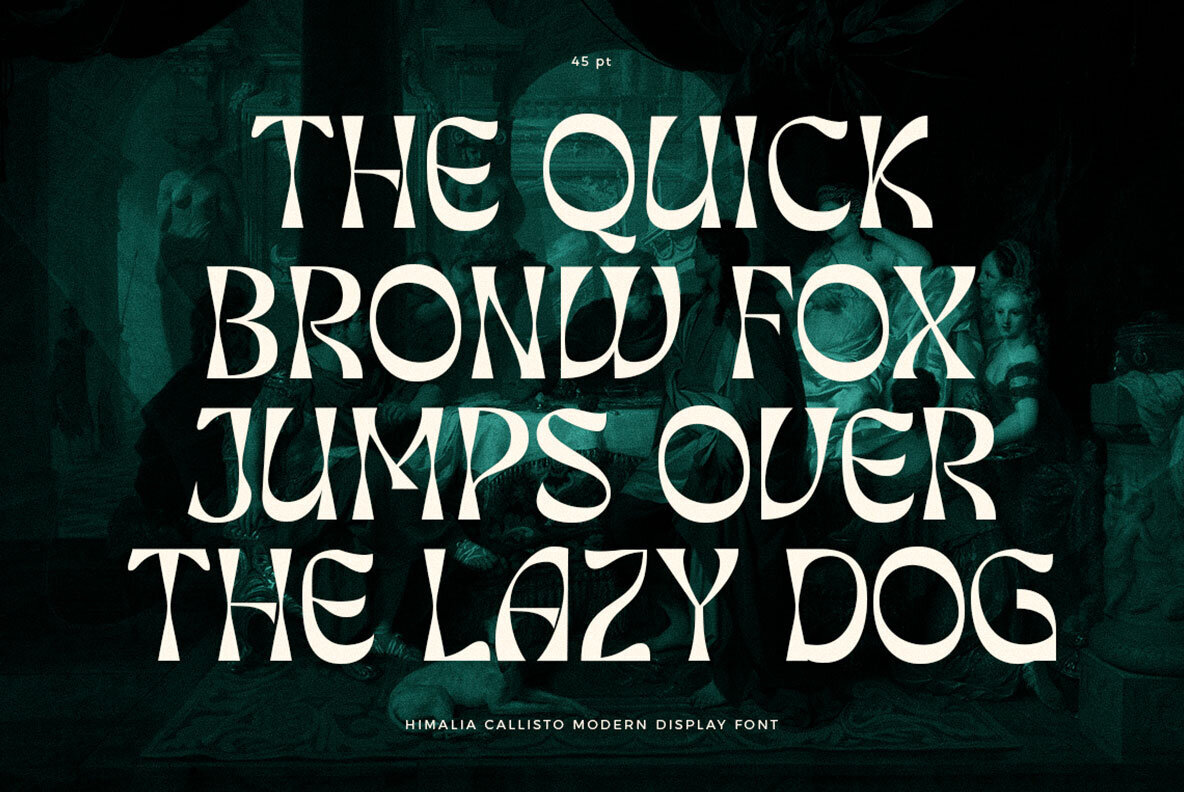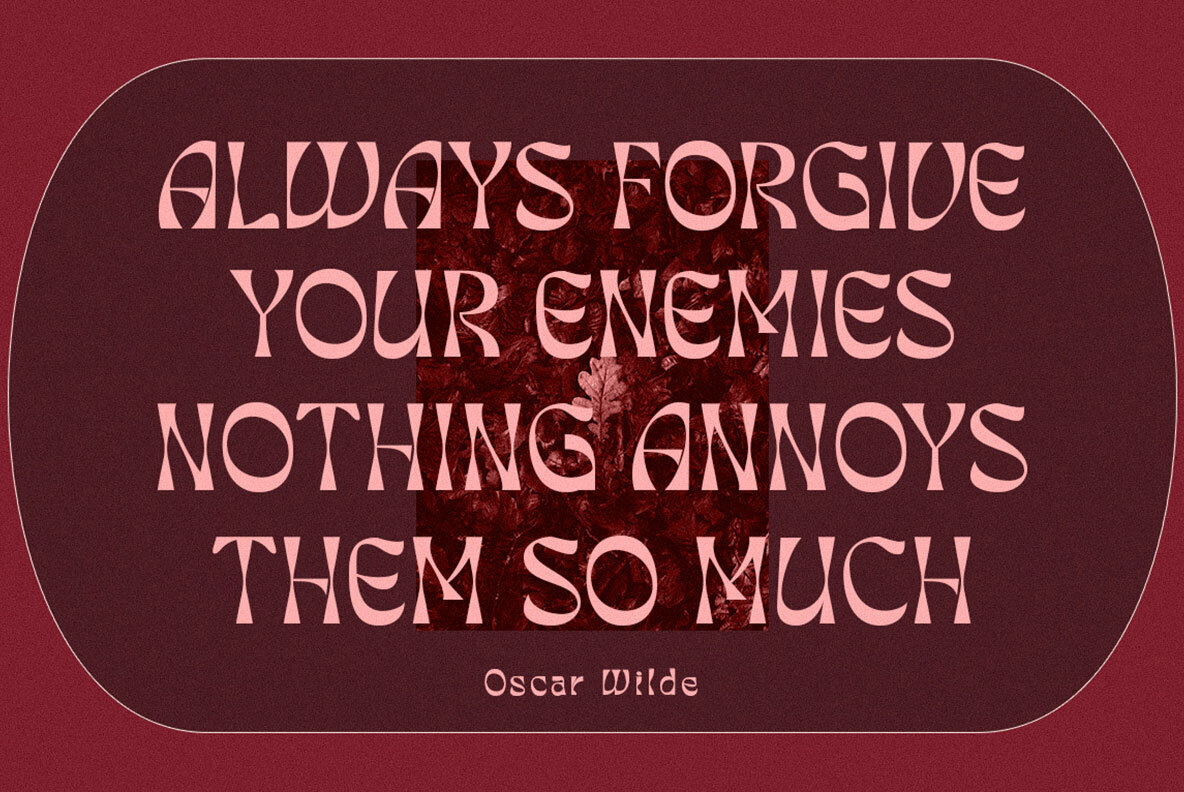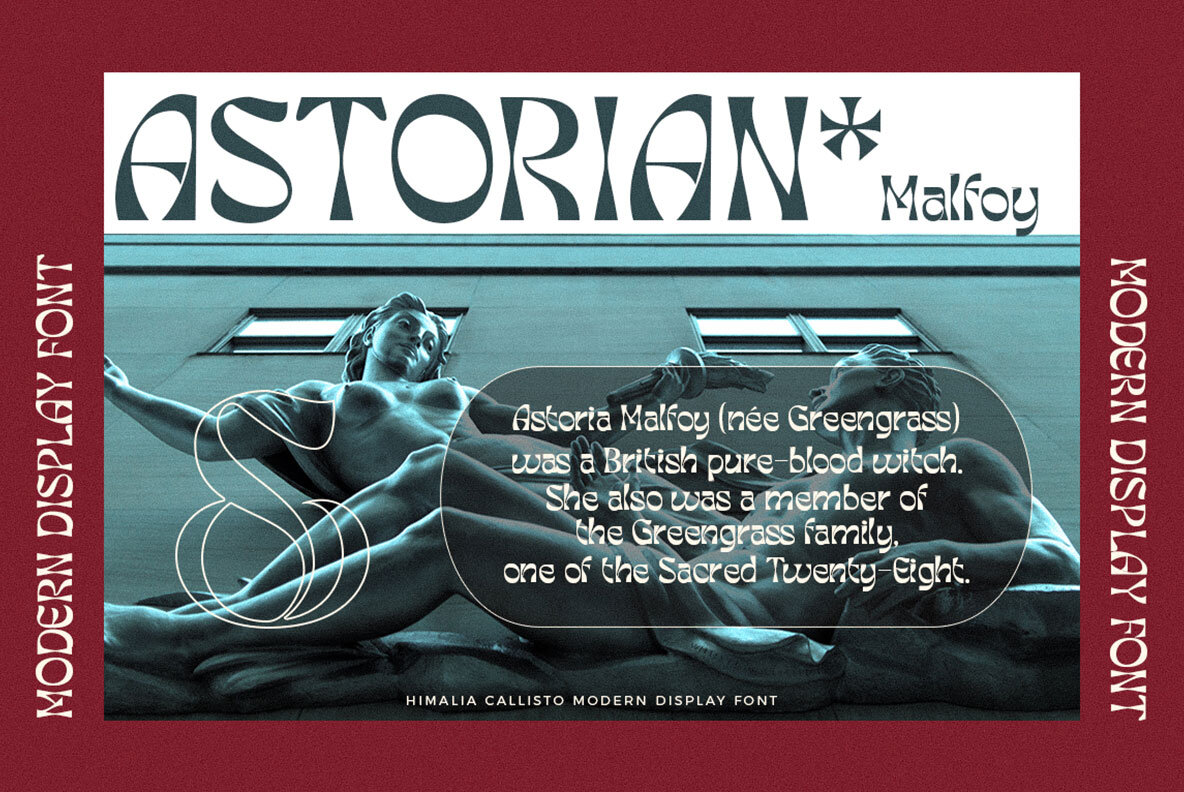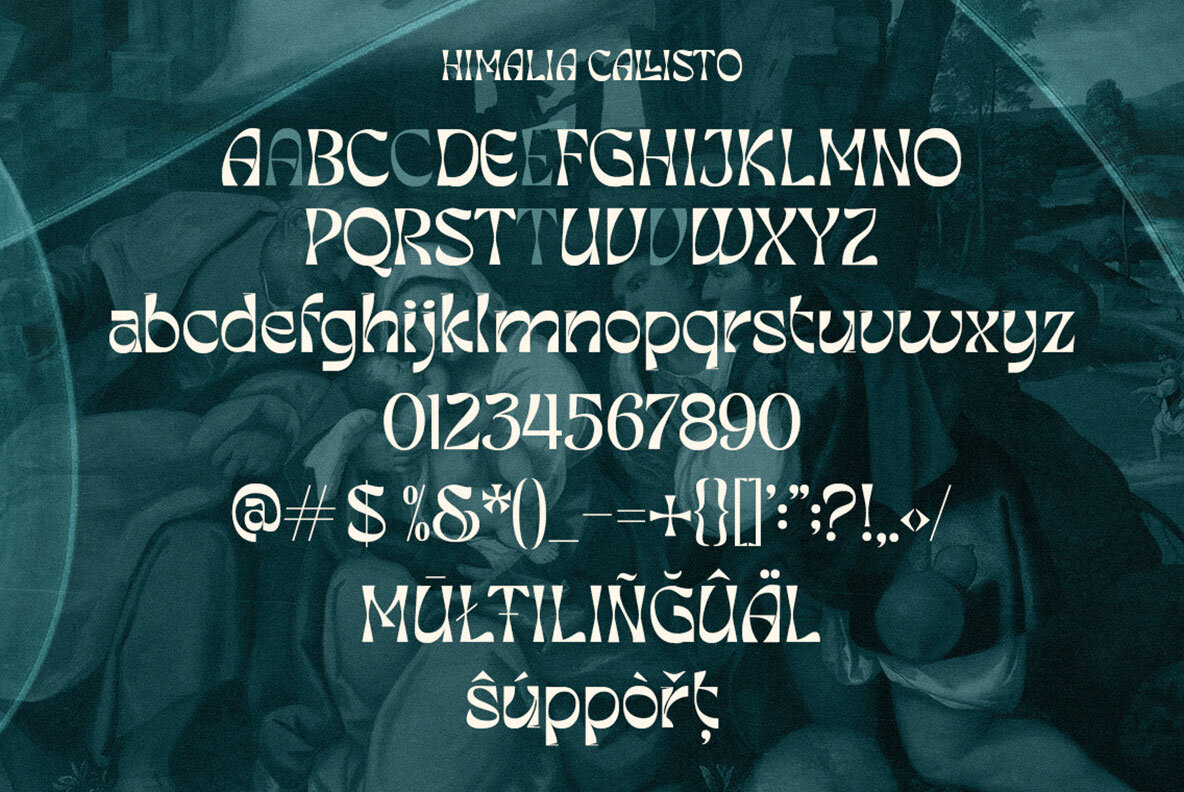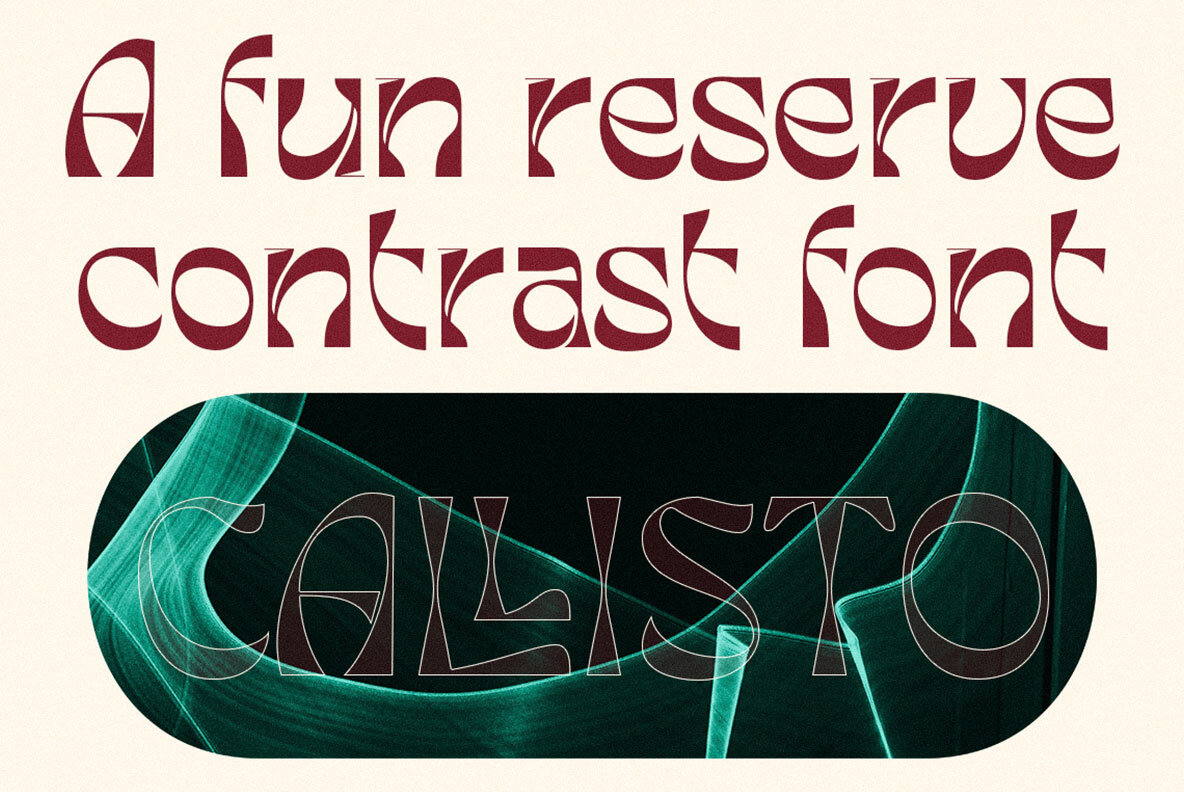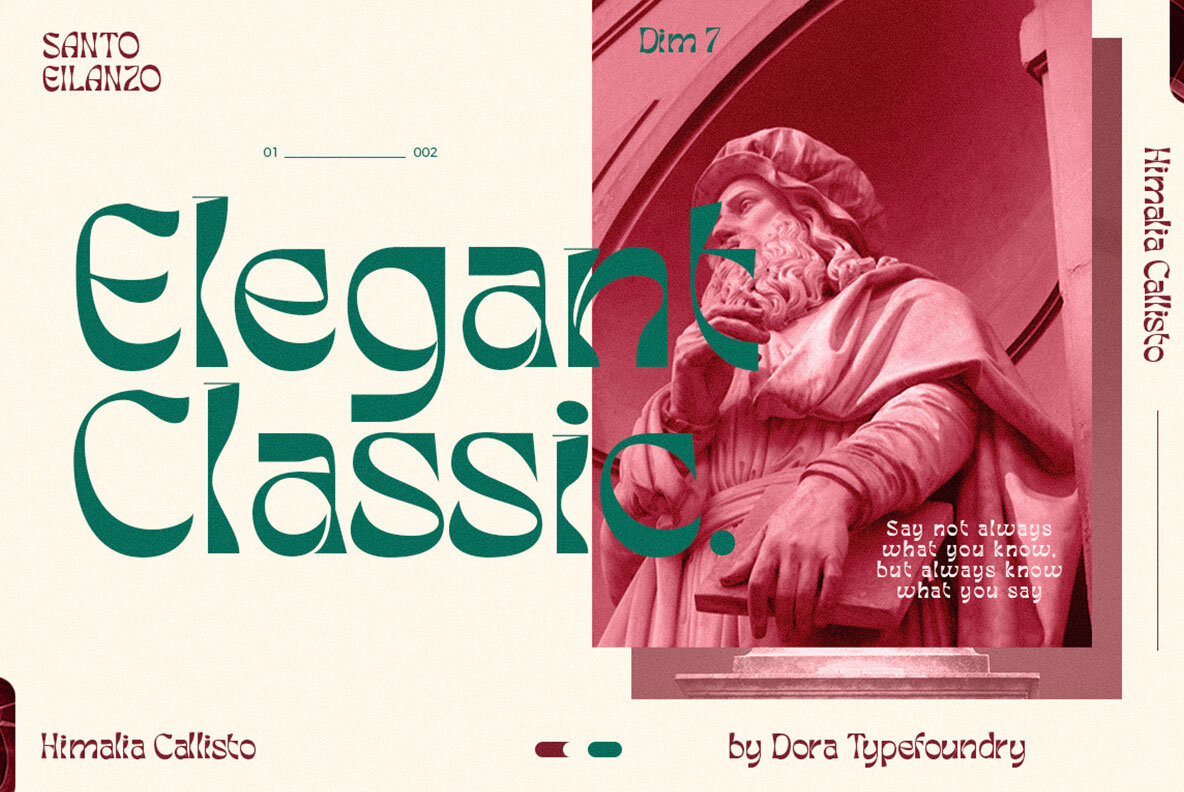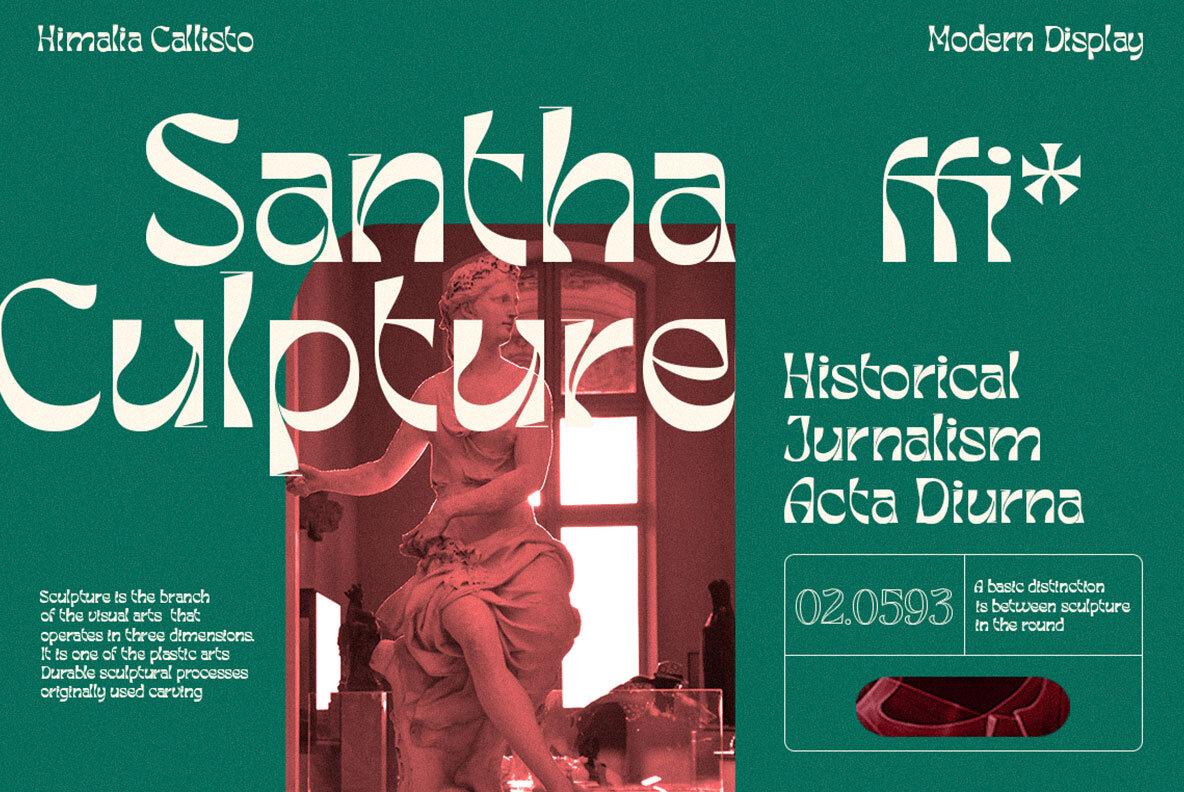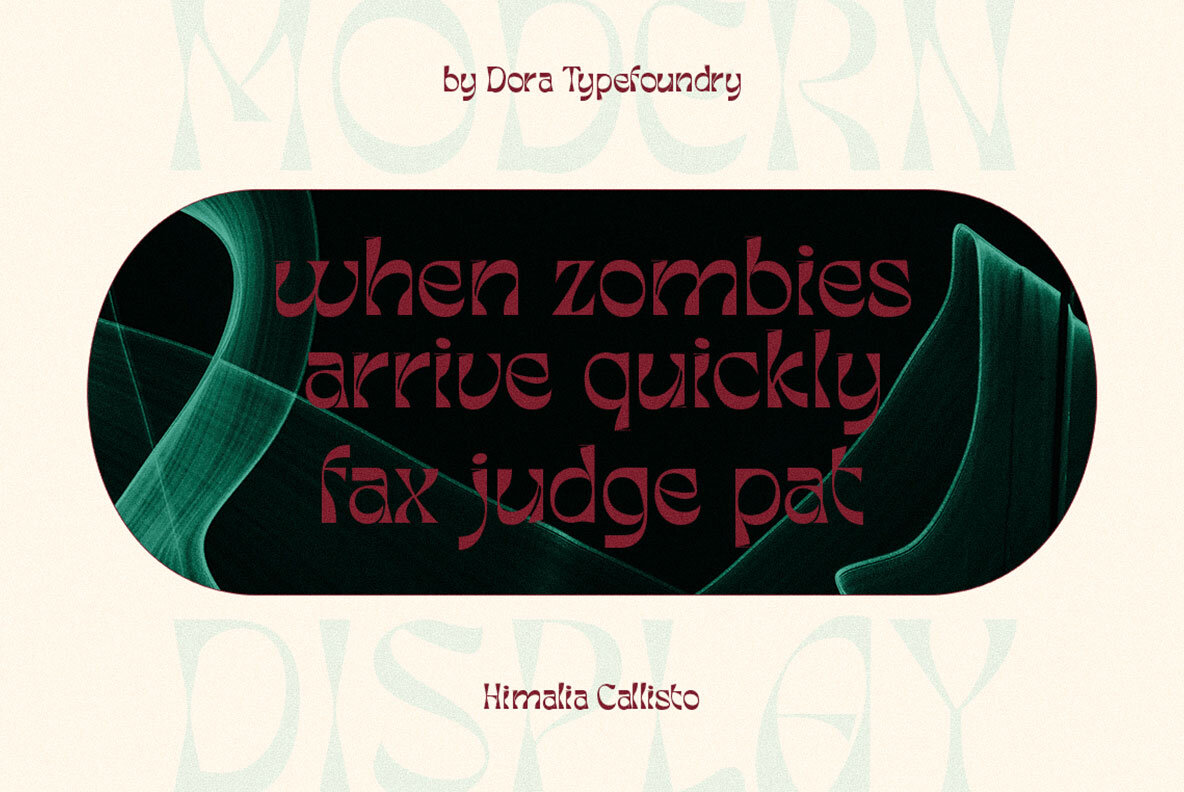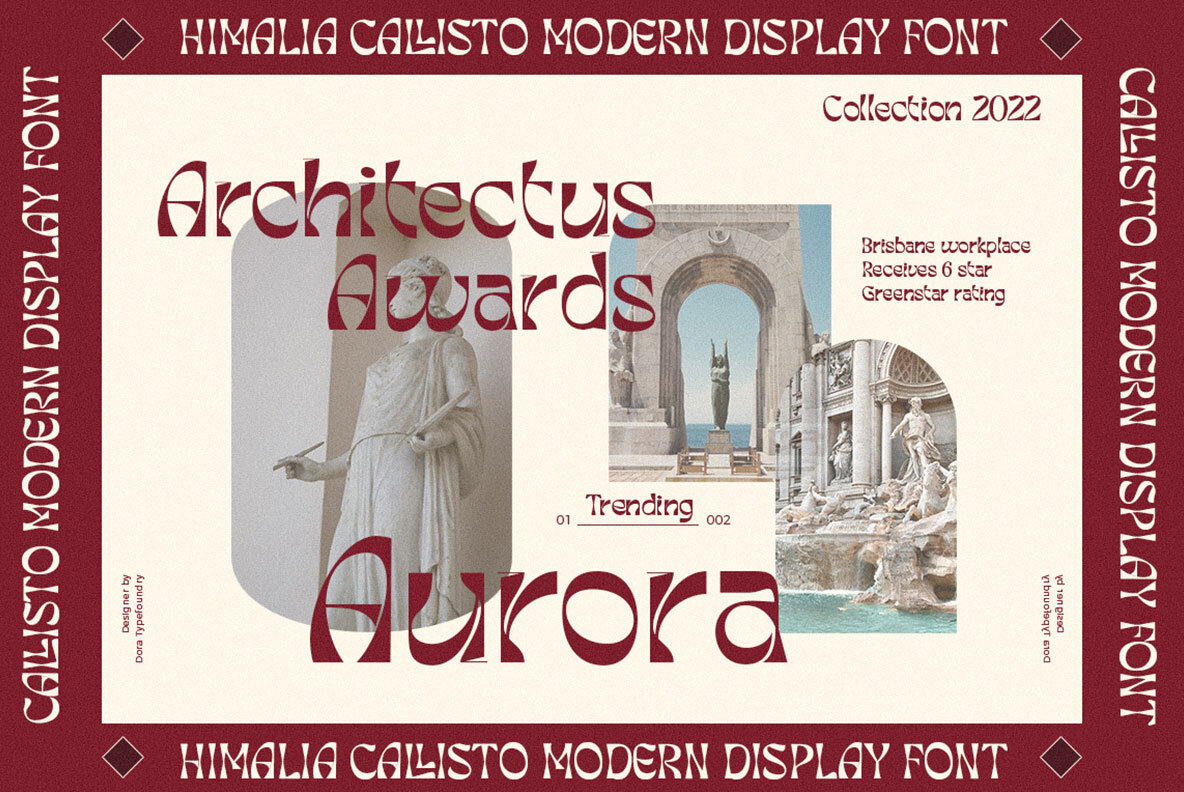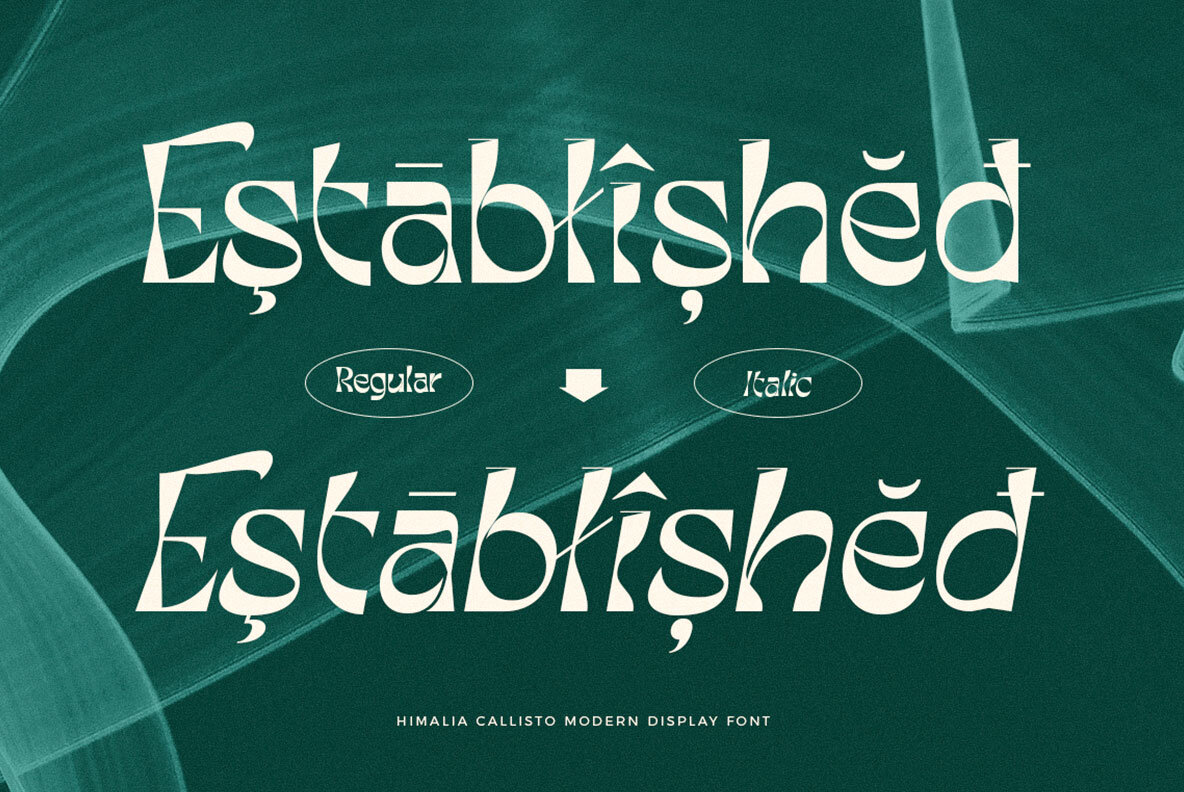
Himalia Callisto Font
Introducing a cool unique display font named Himalia Callisto experimental typeface Embracing the classic era combined with a modern twist. ready to logos, titles, branding, magazines, album covers, book covers, films, clothing designs, quotes, invitations, flyers, posters, greeting cards, product packaging, printed quotes for any project you can think of. Himalia Callisto is equipped with uppercase, lowercase, numbers and full punctuation + Multi language support and PUA-encode. To activate the OpenType Stylistic alternative, you need a program that supports OpenType features such as Adobe Illustrator CS, Adobe Indesign & CorelDraw X6-X7, Microsoft Word 2010 or a later version.